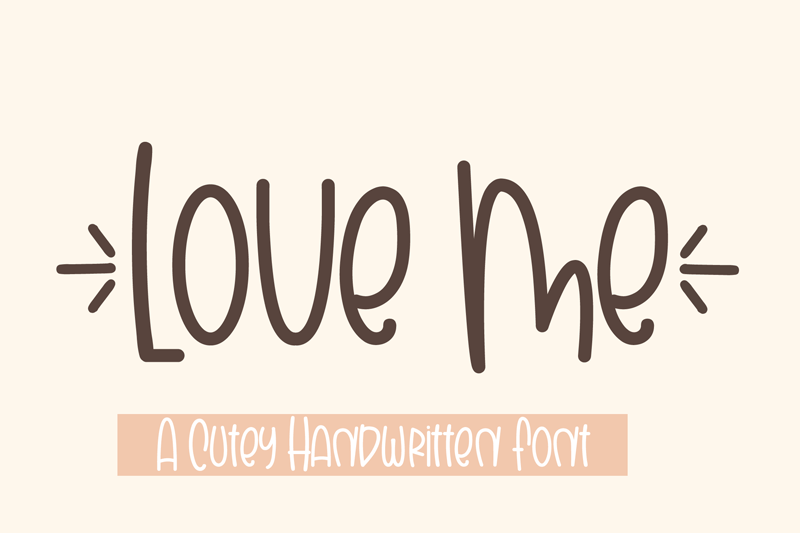
Preview and download Love Me Font. Created by Andang Prasetyo in Script Handwritten styles with Free for personal use license.
Font name: | Love Me |
Author: | Andang Prasetyo |
Note by Andang Prasetyo | |
Love Me is an enchanting handwritten font. This versatile typeface has a wide spectrum of applications, ranging from greeting cards to headlines, and is guaranteed to add a romantic feel to your next project. Love Me is perfect for product packaging, branding projects, magazines, social media, weddings, or just used to express words above the background. if You Want to Use for Commercial Project, Please Purchase it on the following link https://www.creativefabrica.com/product/love-me-59/ref/934867/ For other question, contact us at ANDANG PRASETYO prasetyo.andang1010@gmail.com Terima kasih |